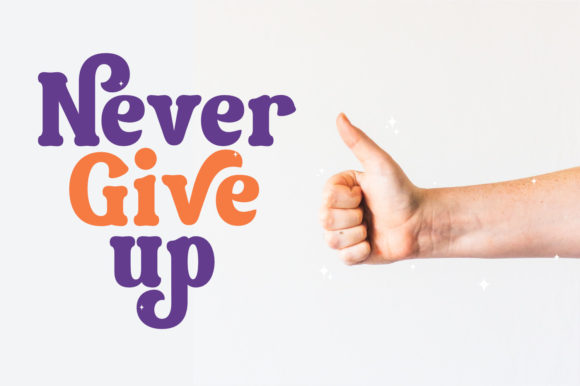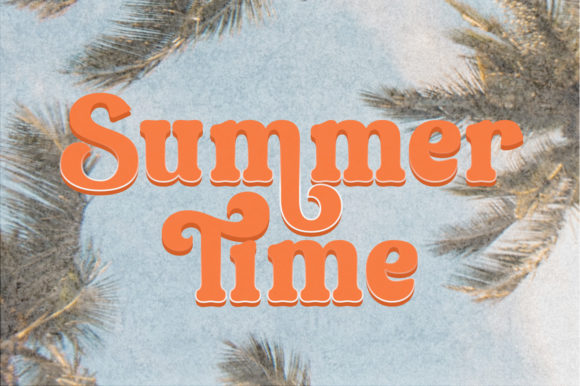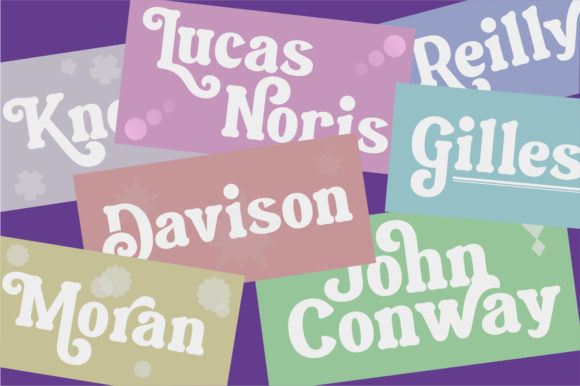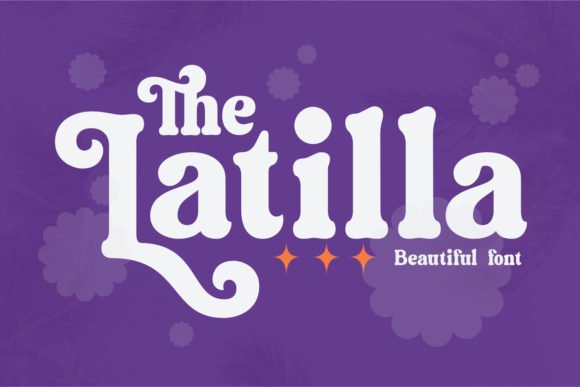
Introduction to Latilla Font
Latilla is a bold and uniquely designed display font.
It is PUA encoded which means you can access all of the glyphs and swashes with ease Add it confidently to your favorite creations and let yourself be amazed by the outcome generated.
Latilla Font offers exceptional quality and versatility, making it a valuable addition to your design toolkit. Whether you’re creating for personal projects or commercial use, Latilla Font delivers professional results.